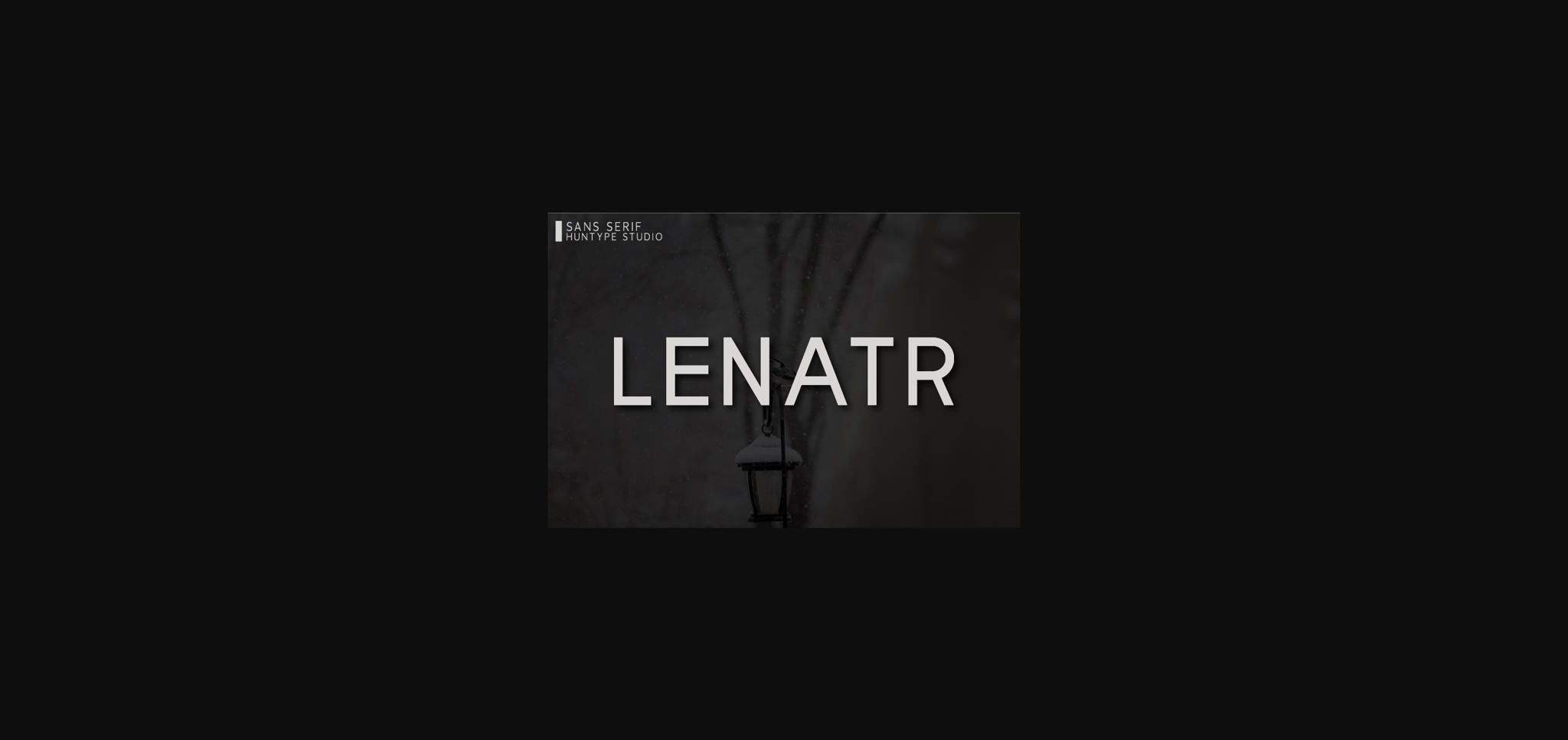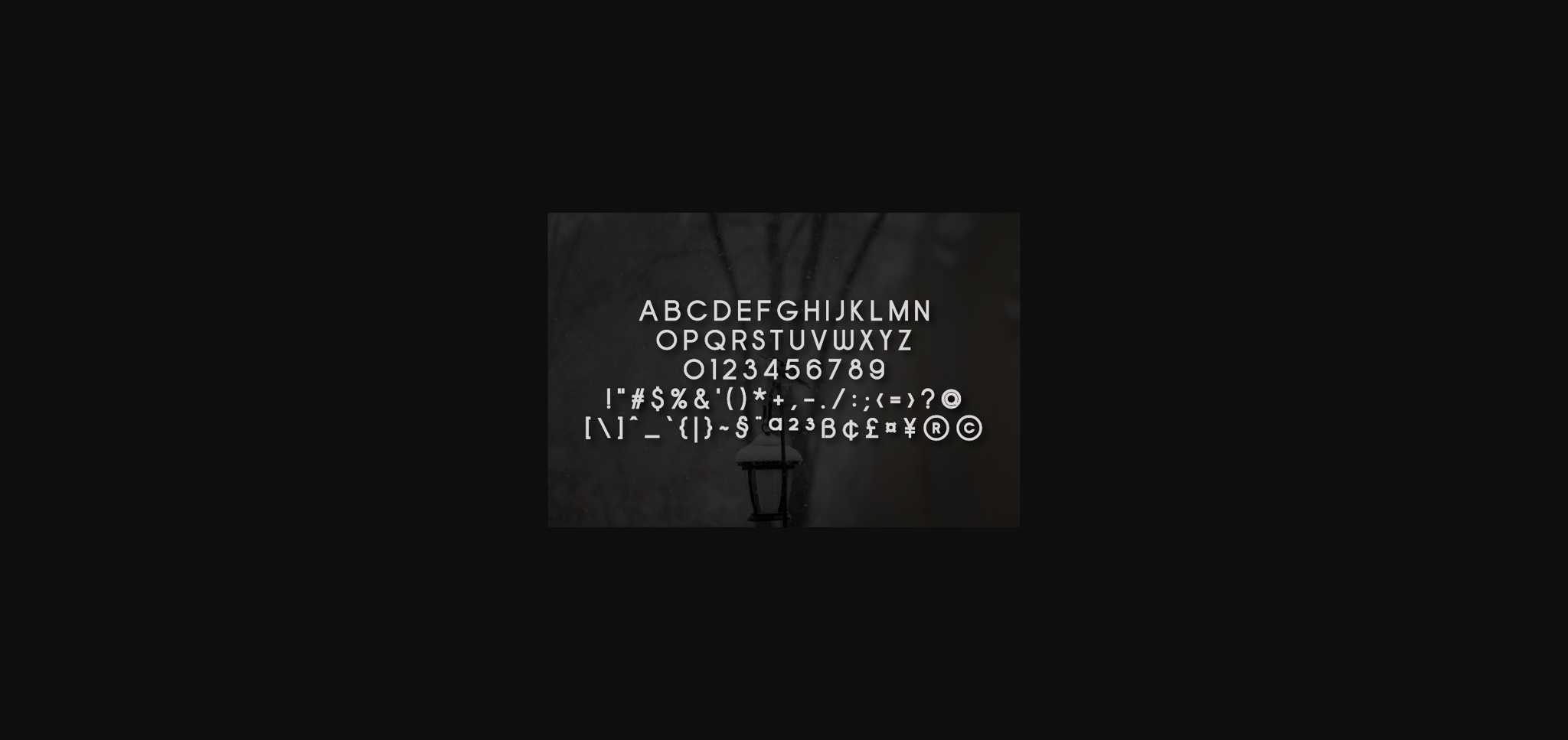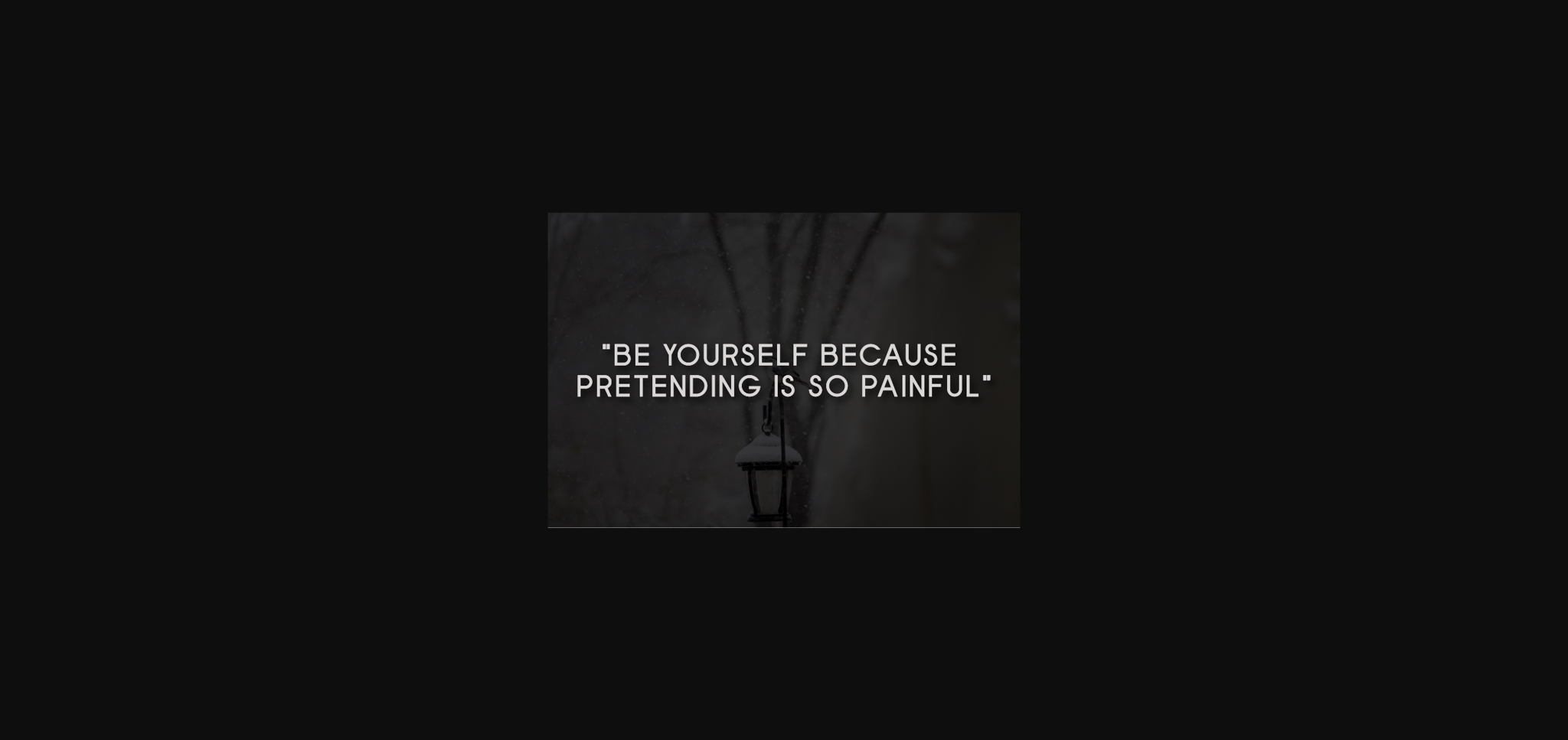
HomeSans Serif FontsLenatr Font Sans Serif Fonts Lenatr Font FacebookXPinterestWhatsApp 1 of 5 ... Lenatr Font Poster 2... Lenatr Font Poster 3... Lenatr Font Poster 4... Lenatr Font Poster 5... About Lenatr Font Lenatr is a simple and clean sans serif font. This minimalist font works great on quotes, headlines, logos and so much more. DOWNLOAD NOW People also explored Cupid Hyomenha Font Kaitlyn Font Cute Giraffe Font Dance Varsity Font Ritchey Kish Font Morning Glories Sport Font Merry Christmas Font 369 0 TagsLenatrLenatr Font Previous articleLanlope FontNext articleRolled Font LEAVE A REPLY Cancel reply Comment: Please enter your comment! Name:* Please enter your name here Email:* You have entered an incorrect email address! Please enter your email address here Website: Save my name, email, and website in this browser for the next time I comment. Personal Use Free Anti Personal Use Free Read more about this font Kids Toys Personal Use Free Read more about this font Sweet Someday Personal Use Free Read more about this font Cherry Ai Personal Use Free Read more about this font BLOG The 10 Best Handwriting Fonts to Add Personality to Your Designs 10 of the Best Handwriting Fonts for Adding Personality to Your Designs There will undoubtedly be no other better choice than handwriting fonts to give... Elegant Wedding Invitation Fonts – Handwritten & Script Fonts 5 Fonts That Will Dominate Design Trends in 2026 Free vs Paid Fonts: Why Investing in Premium Fonts Is Worth It